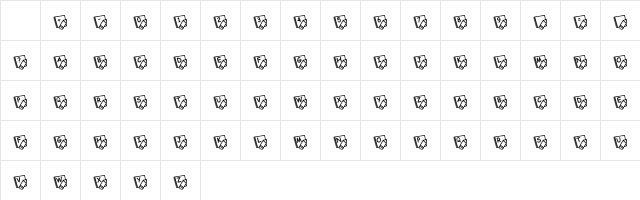
KR School Days Regular
Design Context for KR School Days Typeface
KR School Days is a composed and adaptable typeface that performs quietly and consistently across a wide range of design contexts.
Pro Tip: Pair KR School Days with a font of contrasting weight or personality to build a more expressive typographic hierarchy.